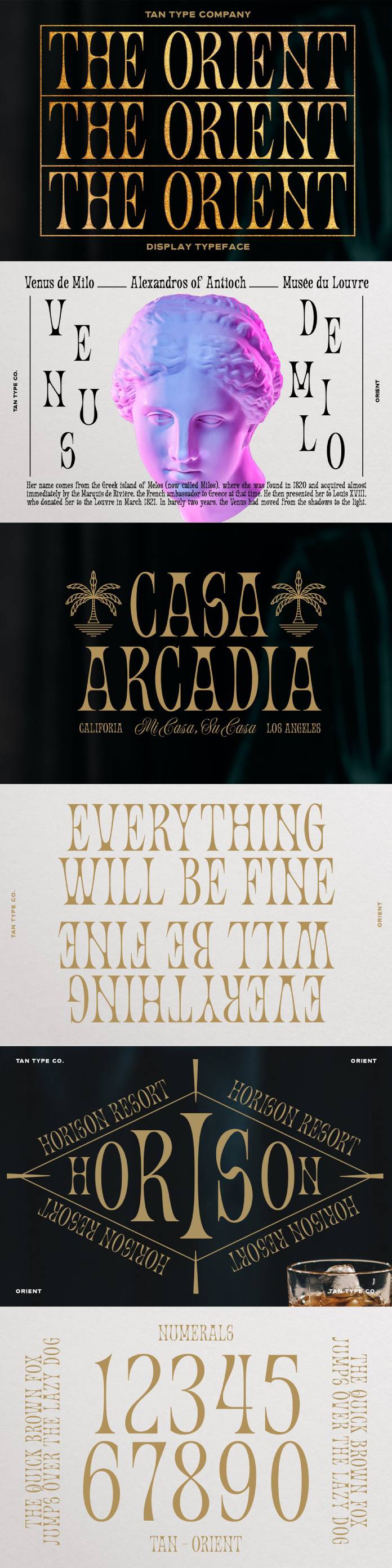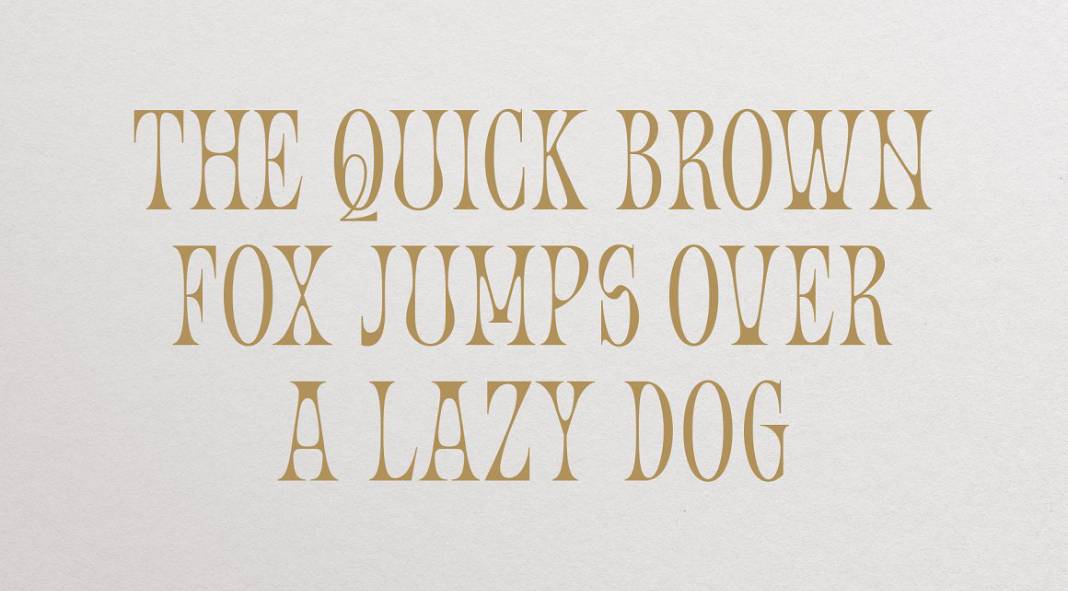
Say hello to TAN ORIENT, an elegant display serif font from foundry TanType.
The TAN ORIENT font was released at the end of 2022 by the team of TanType. With its unique shapes, strong contrast between thick and thin strokes, and exuberant serifs, the typeface masterfully combines classic influences from times past with modern typography trends. TAN ORIENT supports multiple languages. You can use it for decorative headlines in a range of design projects including print and web. You can be sure, TAN ORIENT leaves a lasting impression.